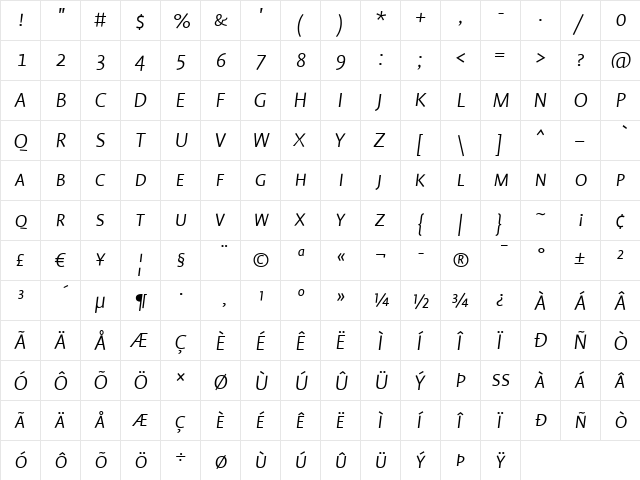
ProfileSC Light Font Preview
ProfileSC Light
ProfileSC Light Font Details
| Foundry | by Martin Wenzel, published by FontShop International for the FontFont library. Profile is a trademark of FSI, Fonts and Software GmbH,http://www.fontfont.de |
Design Context for ProfileSC Typeface
ProfileSC takes a measured approach to typography — its balanced proportions and neutral character make it a reliable workhorse for both digital and print work. The delicate stroke weight brings airiness and refinement to layouts.